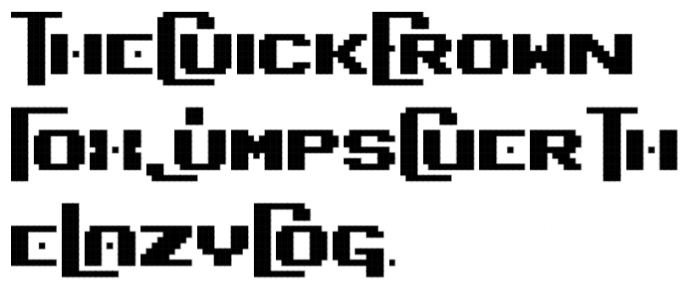
• This is a combination of pixel and future..
oh btw Type in sentence or all lowercase to get good results
Alt ? = @
Alt ! = _
Alt . = *
Alt , = #
Alt ¿ = `
Alt ¡ = ^
you have an extra brick in the capital Y i think
Kinda weird that you can't do caps lock with this, but cool none the less